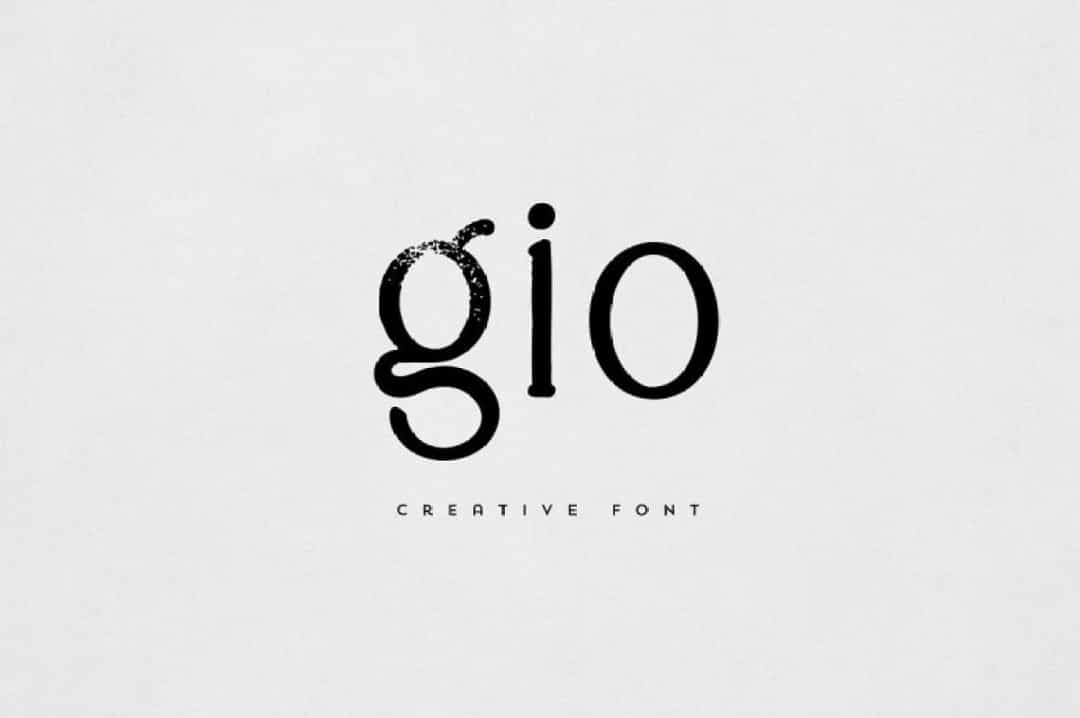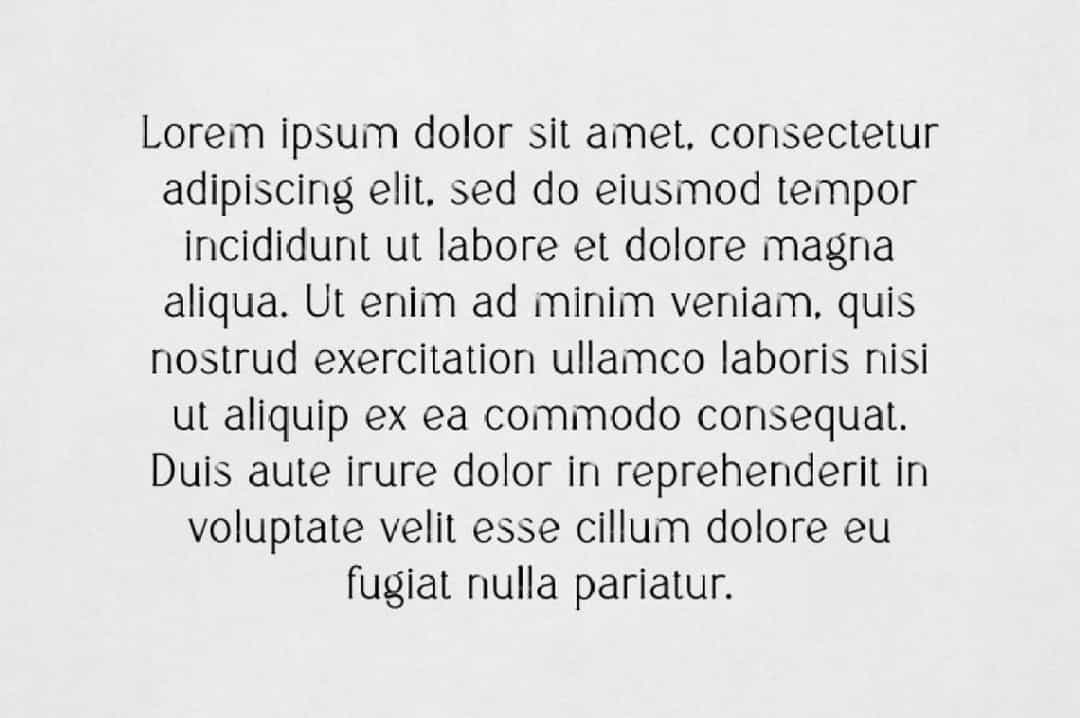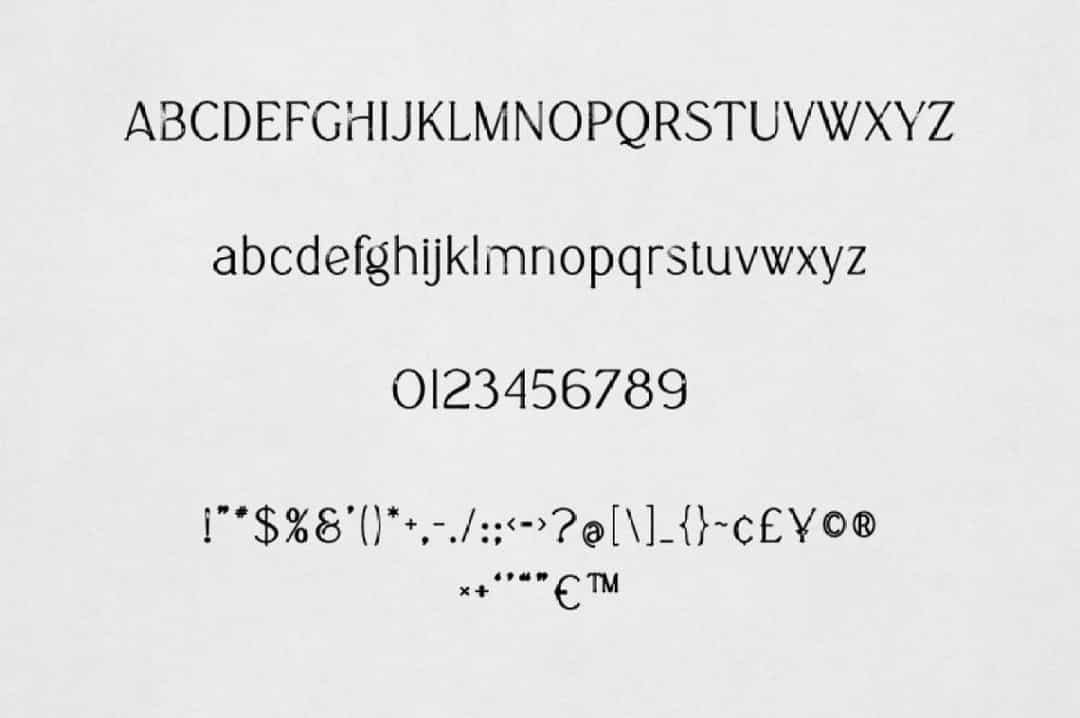
Gio is an elegant and flexible serif typeface that will elevate the typography of any project! Use this typeface for headlines, logos, branding or even simple text! Gio font is ideal for branding purposes as well as homeware designs, packaging of products and magazine headers – even use as an elegant text overlay on photos for background pictures!